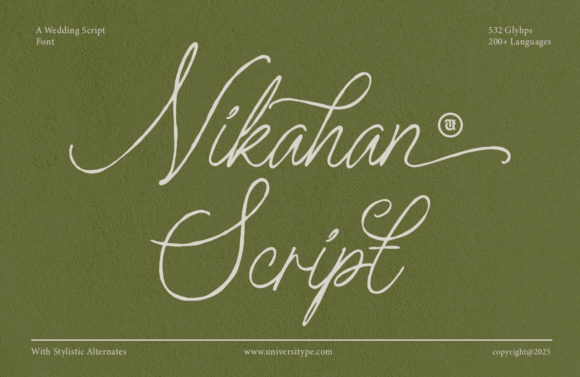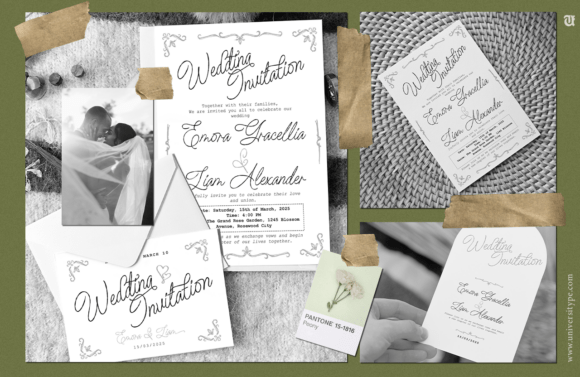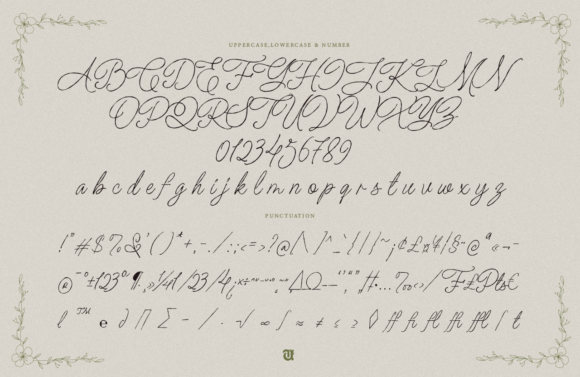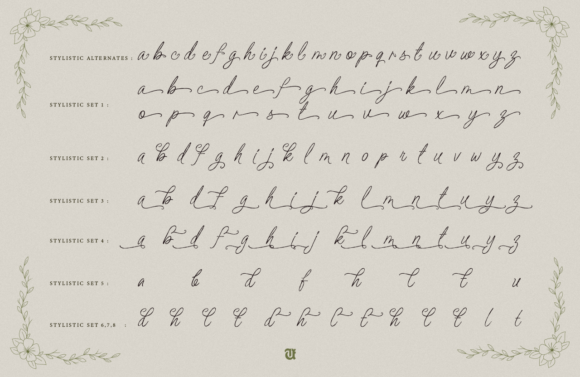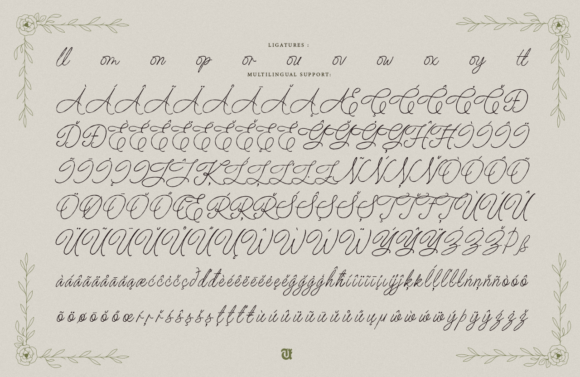
Nikahan Script Font
Experience the charm of UT Nikahan Script, a stunningly romantic wedding font emanating all the grace of classic calligraphy. Impeccably crafted with lavish details and fluid strokes, this font brings a touch of exclusivity to all your wedding stationery, leaving your guests awestruck.
UT Nikahan Script finds its audience in the meticulous wedding planners, artistic designers, and couples who crave an extra dollop of sophistication in their wedding day paraphernalia – be it the invites, save-the-dates, or other matrimonial correspondences.
The brainchild behind UN Nikahan Script seeped inspiration from the timeless beauty of traditional calligraphy and handwritten fonts, and was designed to encapsulate the unbound love and bond inherent to marriage. This blend of quintessential elegance with a tinge of modern simplicity serves both traditional and contemporary weddings with equal finesse.
Usage Suggestions:
– Wedding Invitations: Leave an indelible romantic impression with standout invites.
– Save-The-Date Cards: Announce your special day in matchless, elegant style.
– Wedding Programs: Unleash your creativity and make programs that complement your wedding theme flawlessly.
– Personalized Stationery: Let your exclusive style reverberate in thank-you notes, menus, and other wedding stationery.
In essence, UT Nikahan Script is the embodiment of elegance and personal touch – your ideal companion to weave memorable stories around your special day. Whether you’re a professional designer or a couple immersed in wedding preps, this font is a ticket to crafting unforgettable matrimonial mementos for your grand day.